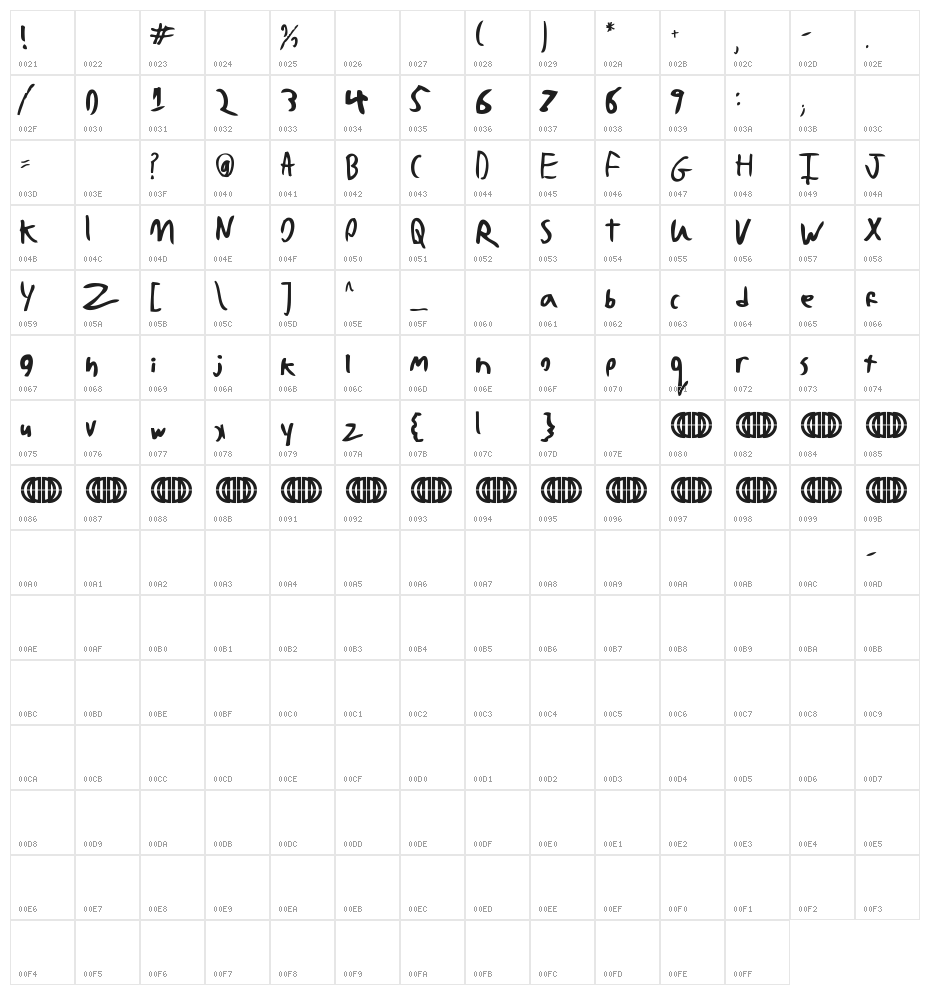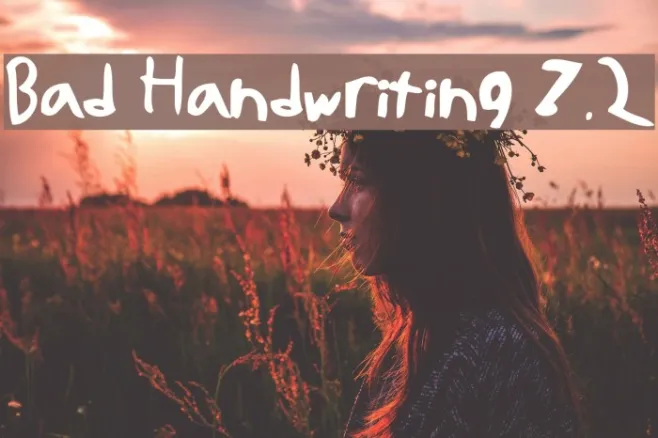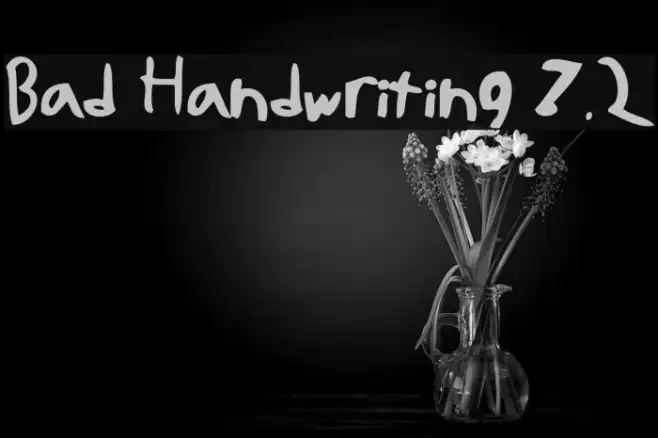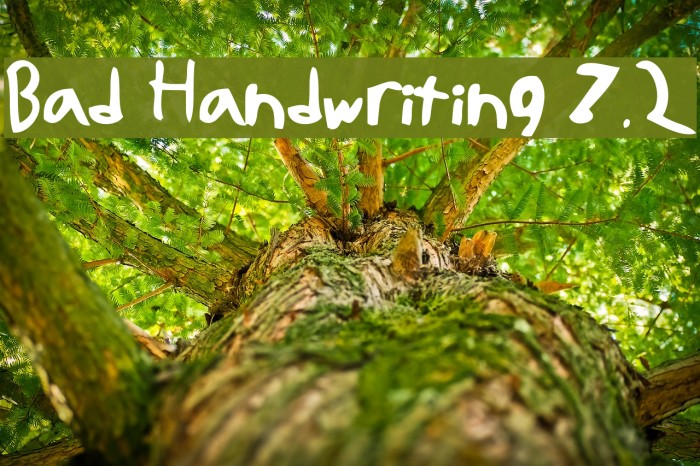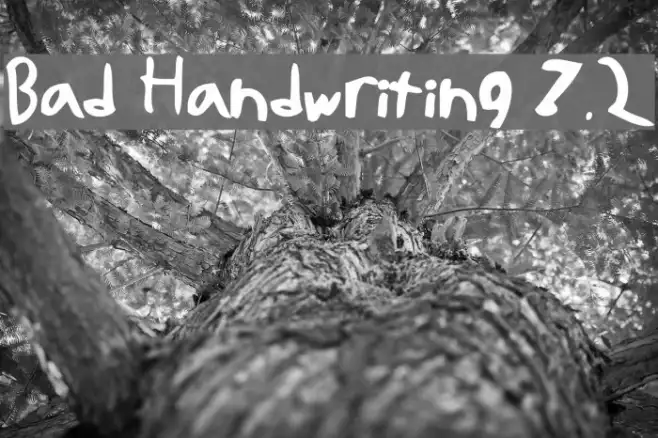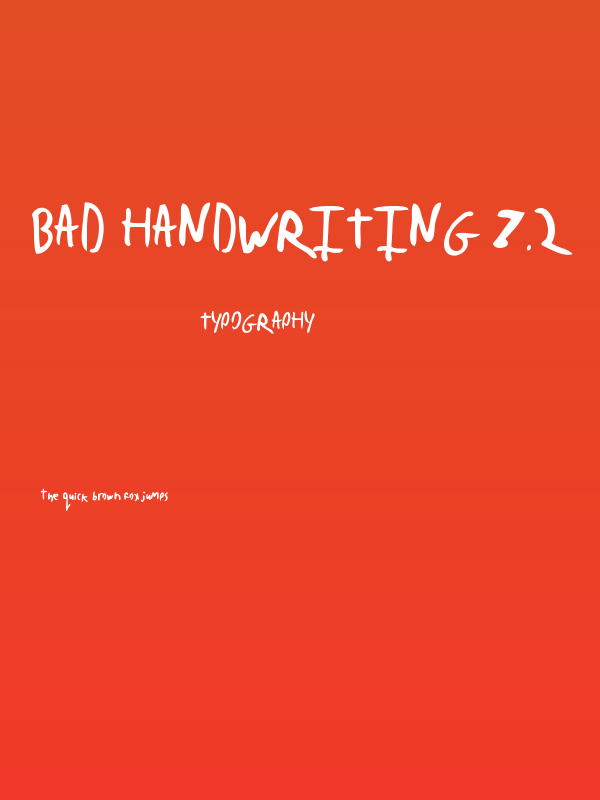
Bad Handwriting 7.2 Font
Bad Handwriting 7.2 Description
This font exudes a playful and casual vibe, reminiscent of spontaneous handwriting. The characters are unevenly shaped, with varying stroke thickness that adds to its informal charm. The uppercase letters are bold and slightly tilted, while the lowercase letters maintain a consistent flow, enhancing the handwritten aesthetic. Numbers and special characters follow the same whimsical style, making the font suitable for creative projects. The overall appearance is dynamic and lively, perfect for designs that aim to capture a sense of spontaneity and personal touch.
Overall StyleCasual
Use CaseLogos, Headlines, Informal Text
Proposed ProjectsIdeal for greeting cards, personal blogs, children's books, and informal branding.